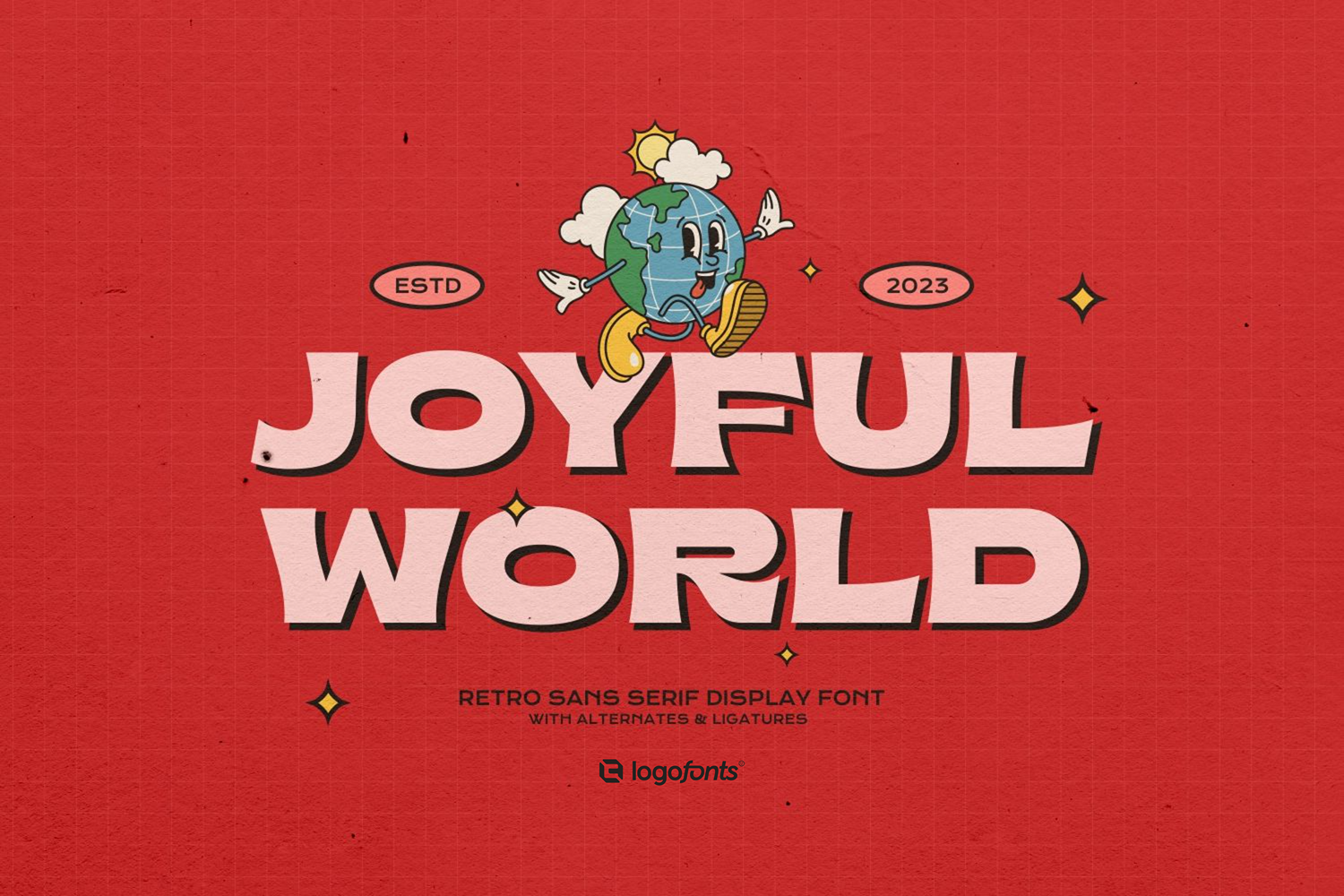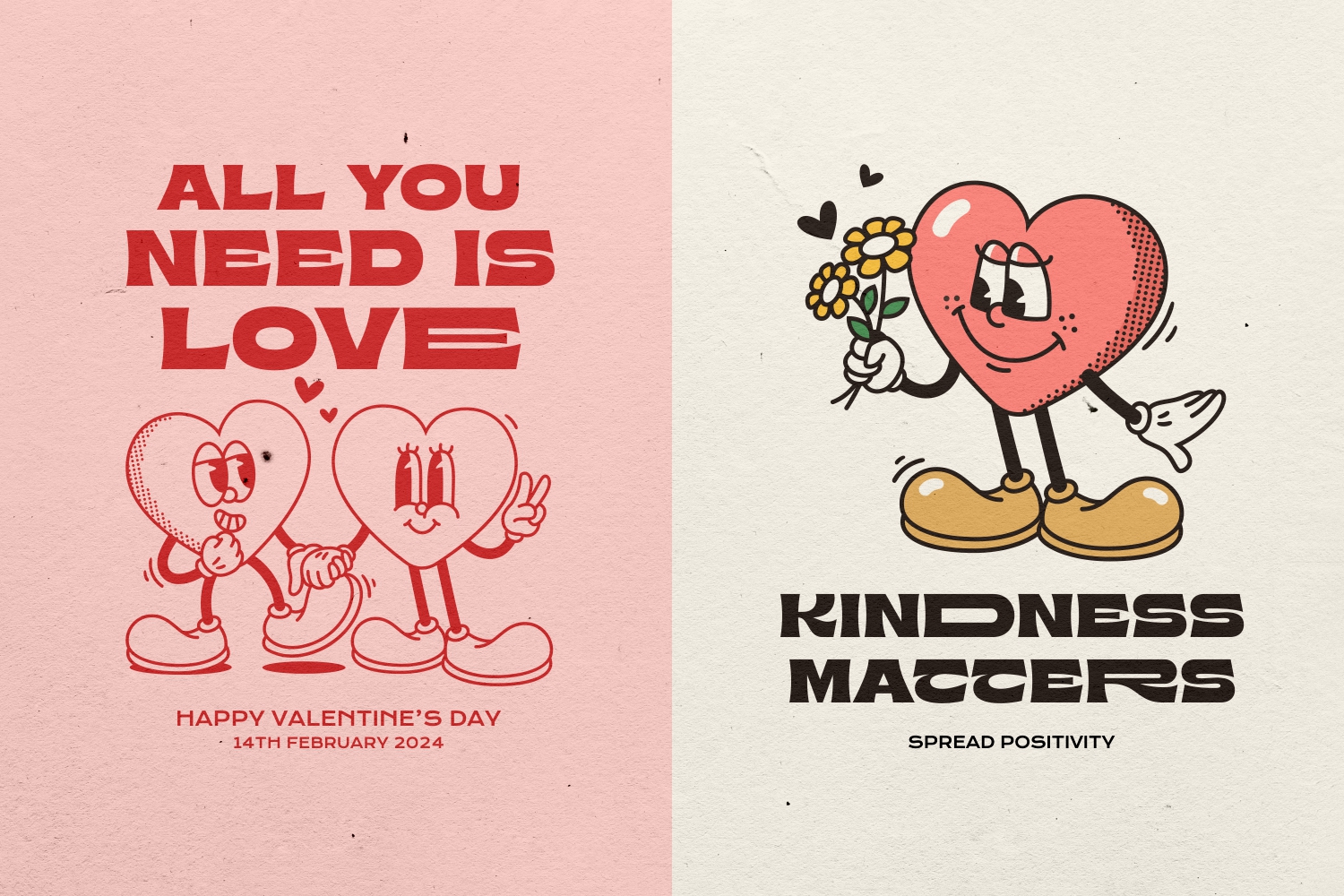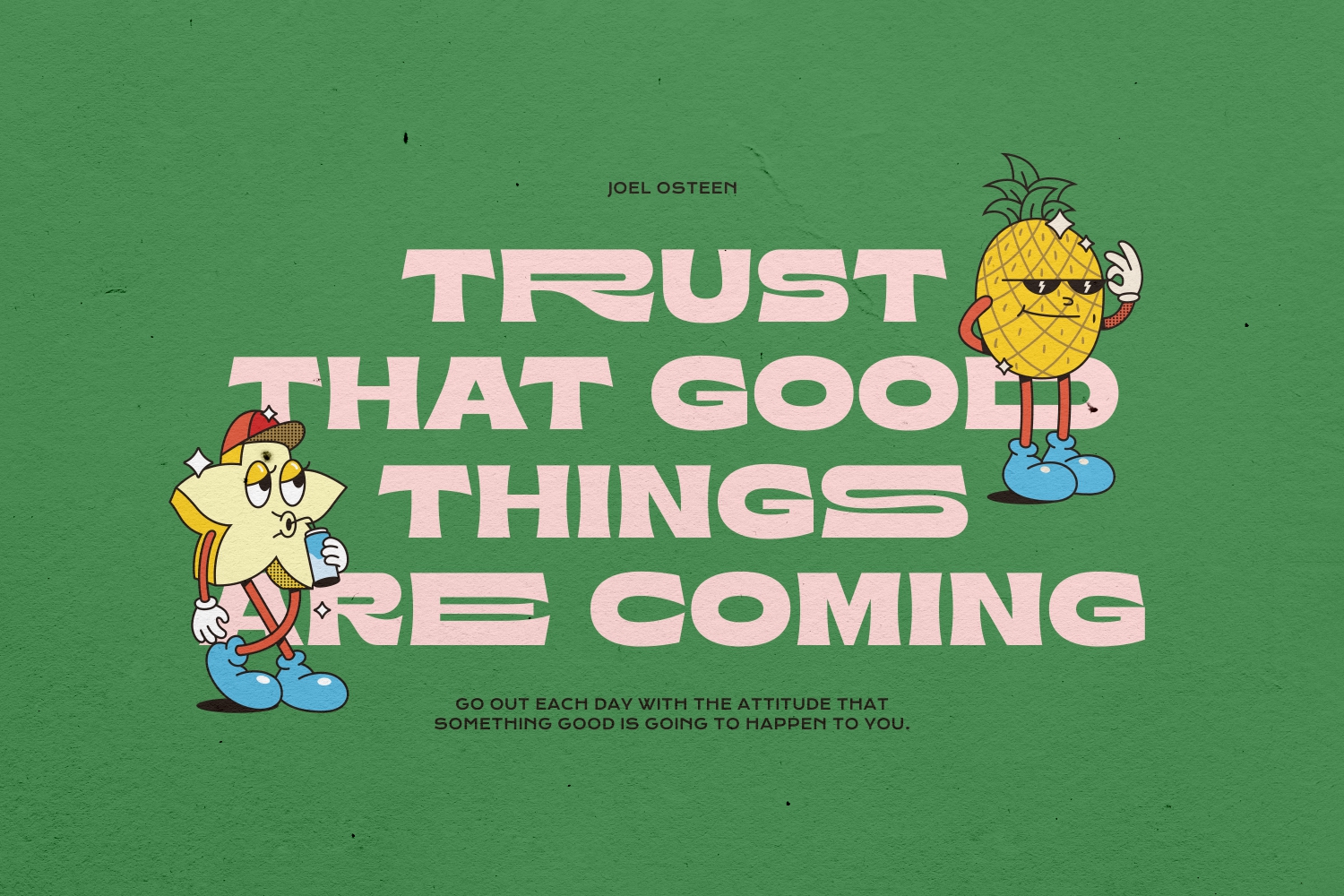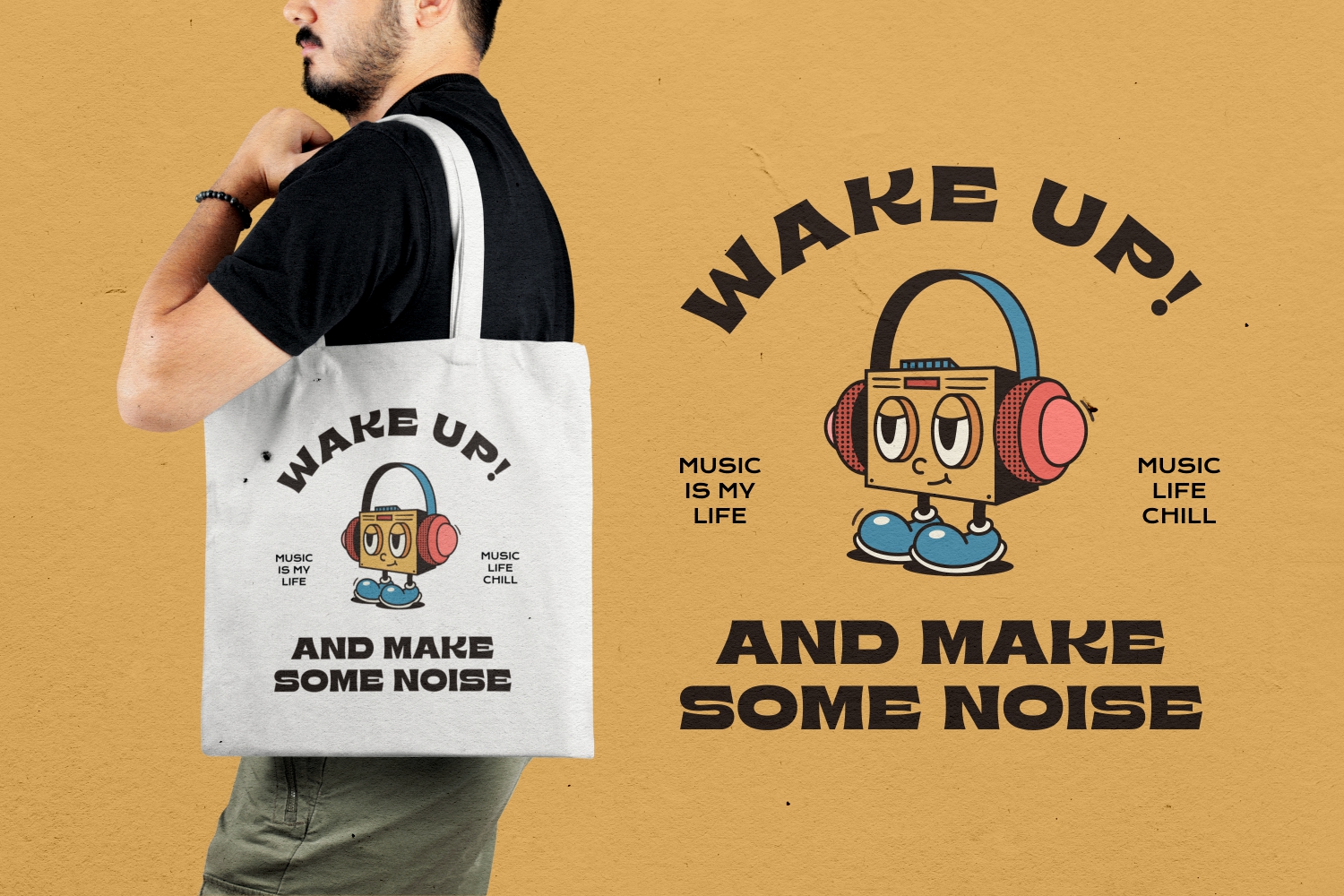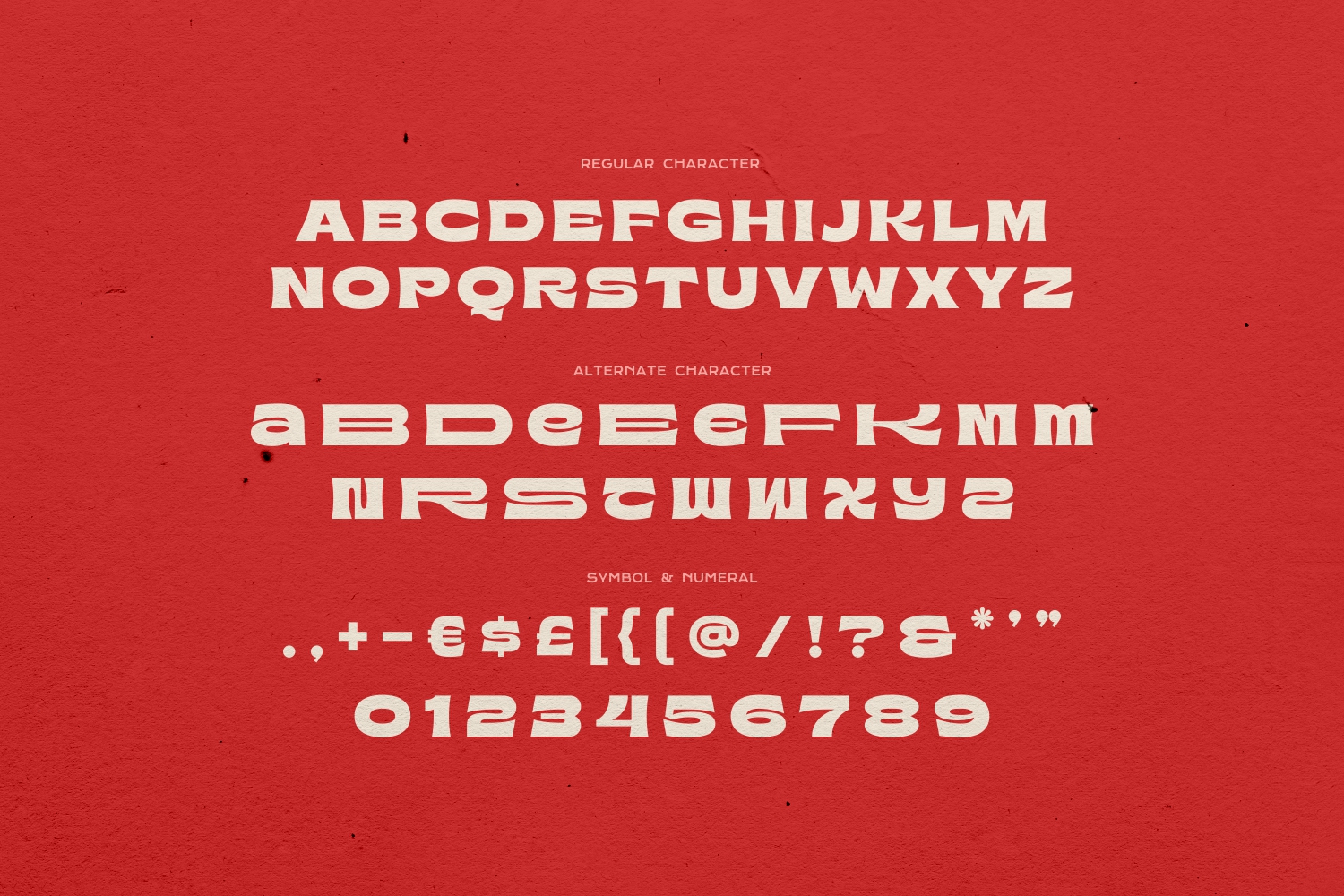
Joyful World is a playful retro sans serif display font that captures the spirit of fun, positivity, and vintage cartoon charm. With chunky letterforms, smooth curves, and expressive alternates, this font evokes a sense of nostalgia while keeping a fresh and modern twist. Perfect for children’s products, uplifting posters, apparel, or cheerful branding.
Designed with ligatures and alternate characters, Joyful World allows for expressive customization and visual variation. Whether you’re creating quotes, merchandise, or friendly packaging, this font adds a joyful, animated personality to every design it touches.
Joyful World